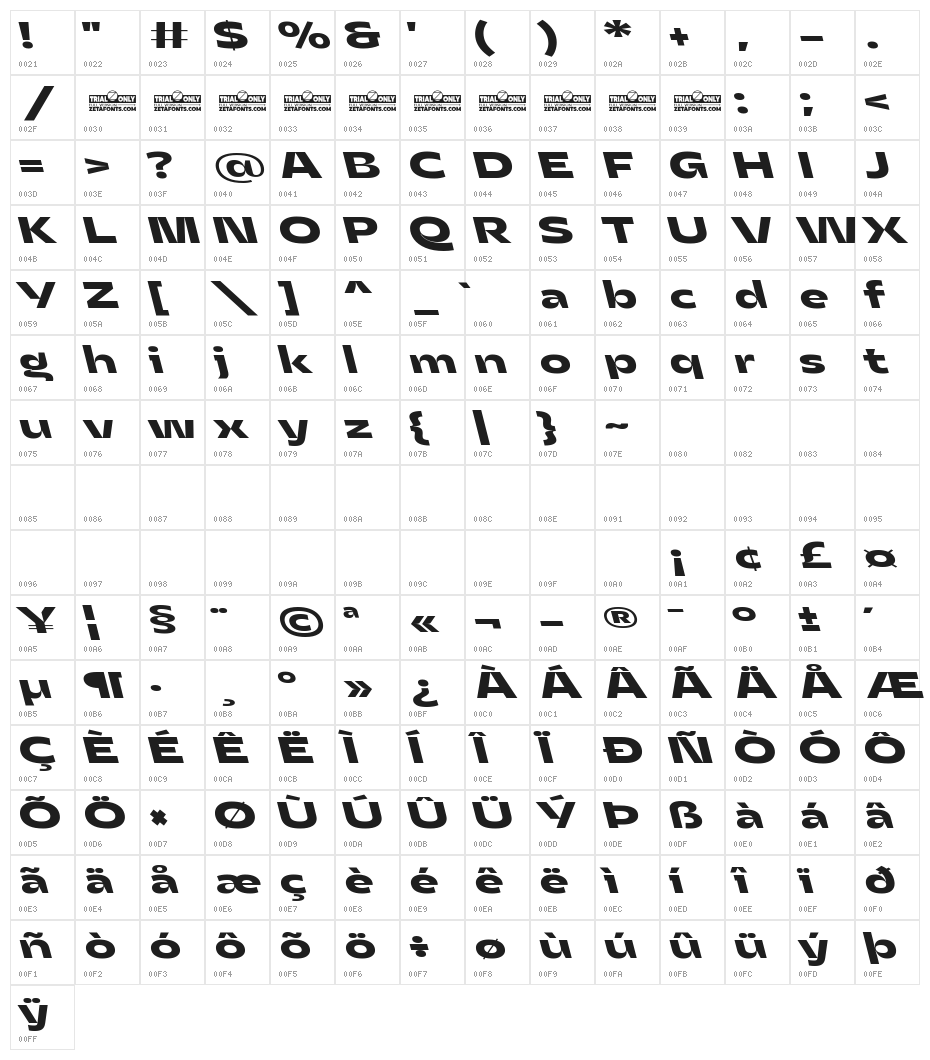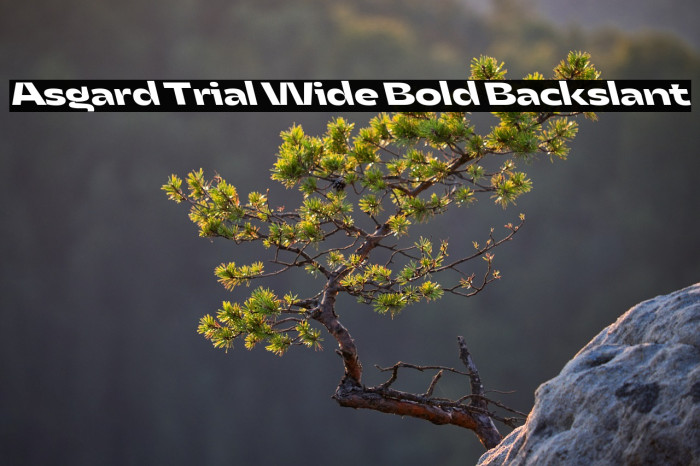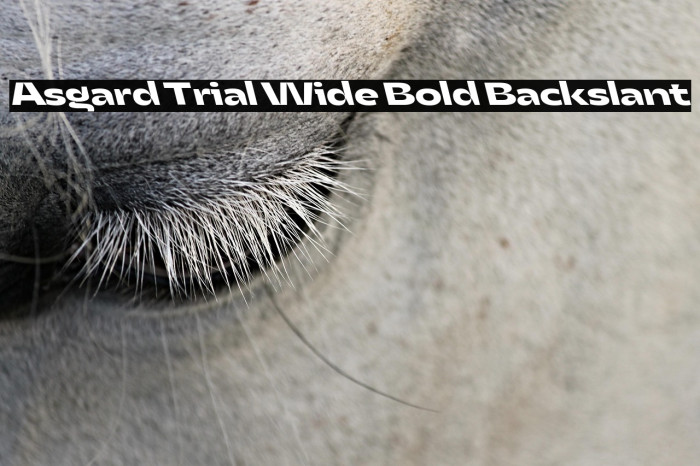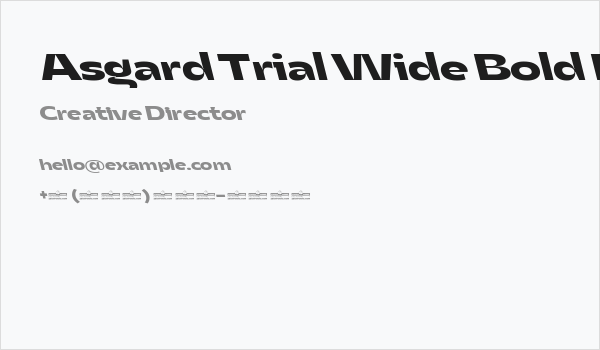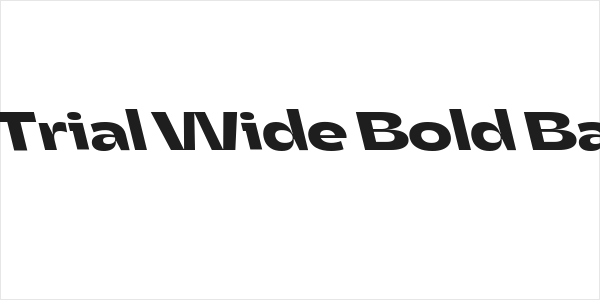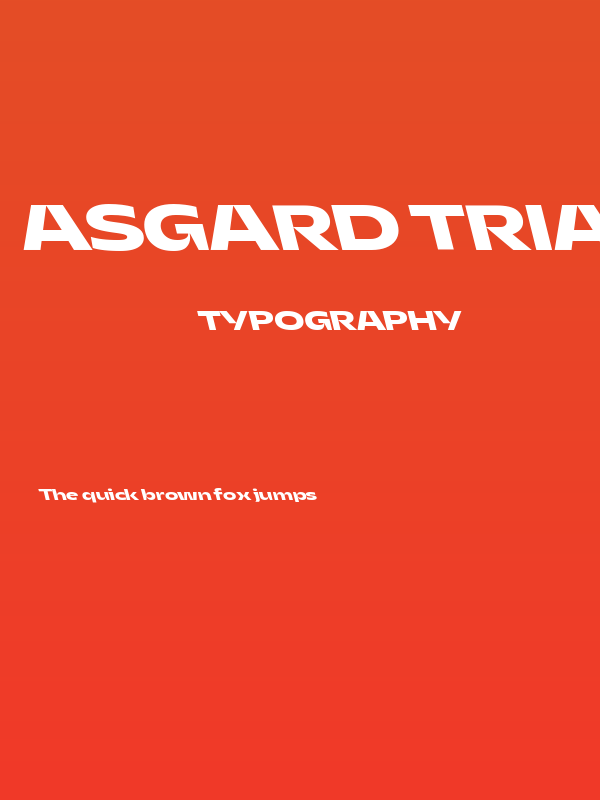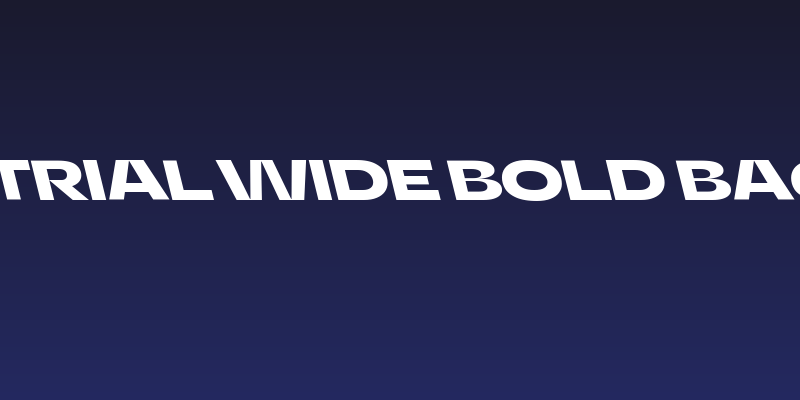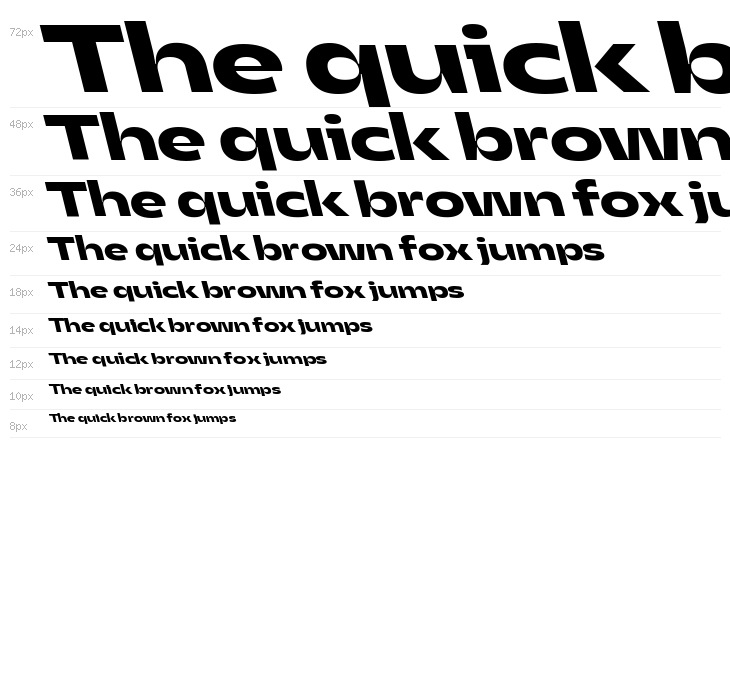
Asgard Trial Wide Bold Backslant Font
Asgard Trial Wide Bold Backslant Description
This font exhibits a bold and striking appearance with a distinct backslant, giving it a dynamic and forward-moving feel. The characters are wide and robust, emphasizing strength and modernity. The uppercase and lowercase letters maintain a consistent style, with smooth curves and sharp angles that enhance readability while adding a unique flair. The numerals and special characters are designed to match the boldness of the alphabet, ensuring a cohesive look across all text. This font is ideal for making a strong visual impact.
WidthExpanded
Proposed ProjectsIdeal for branding, headlines, posters, and any project requiring a strong visual presence.